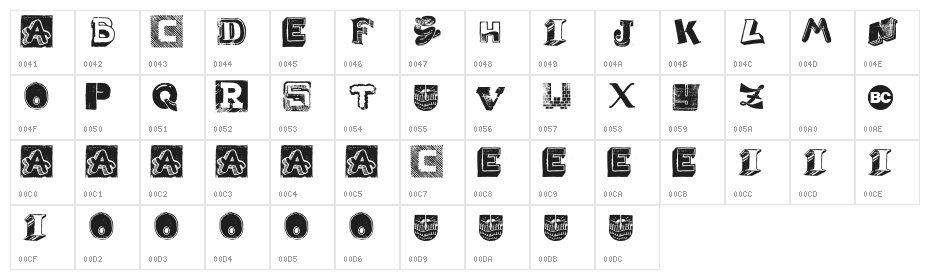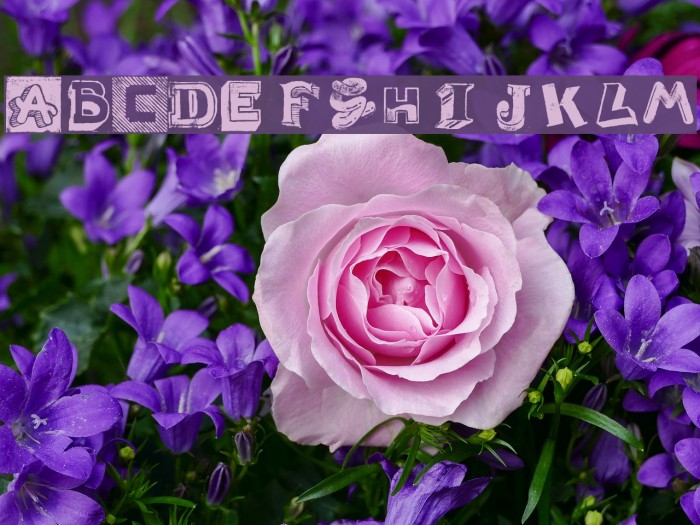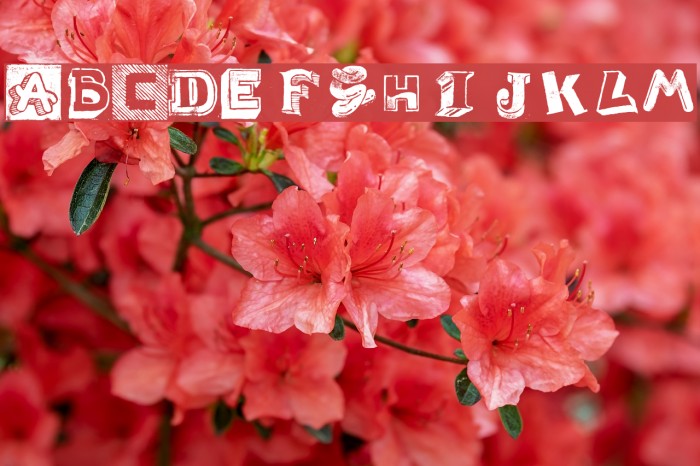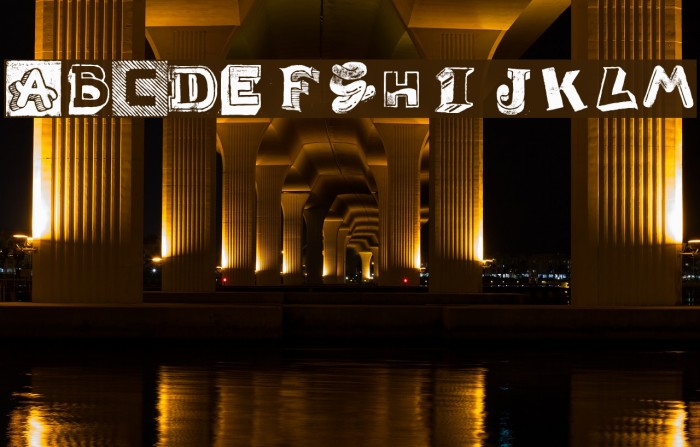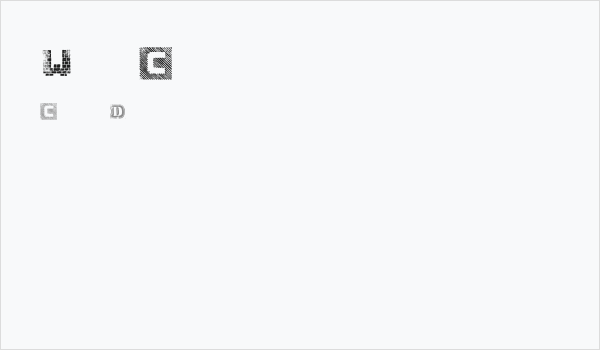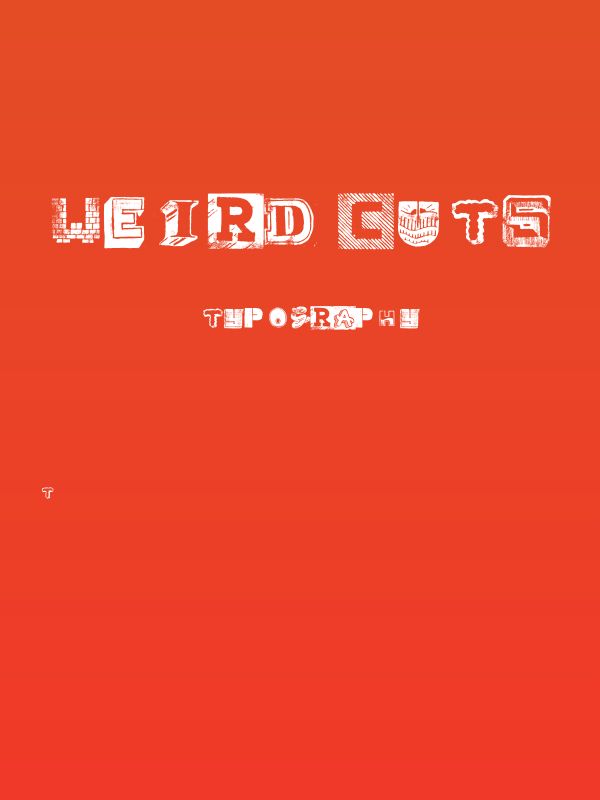
Weird Cuts Font
Weird Cuts Description
This font is a highly creative and eclectic display typeface, characterized by its unique and varied letterforms. Each character seems to have its own distinct style, ranging from bold and blocky to intricate and decorative. The font incorporates a mix of textures, patterns, and shading, giving it a dynamic and artistic appearance. The diversity in design within the same typeface makes it stand out, offering a playful and unconventional aesthetic. It is ideal for projects that require a strong visual impact and a touch of whimsy.
Proposed ProjectsIdeal for posters, album covers, artistic projects, and any design requiring a bold, unique statement.